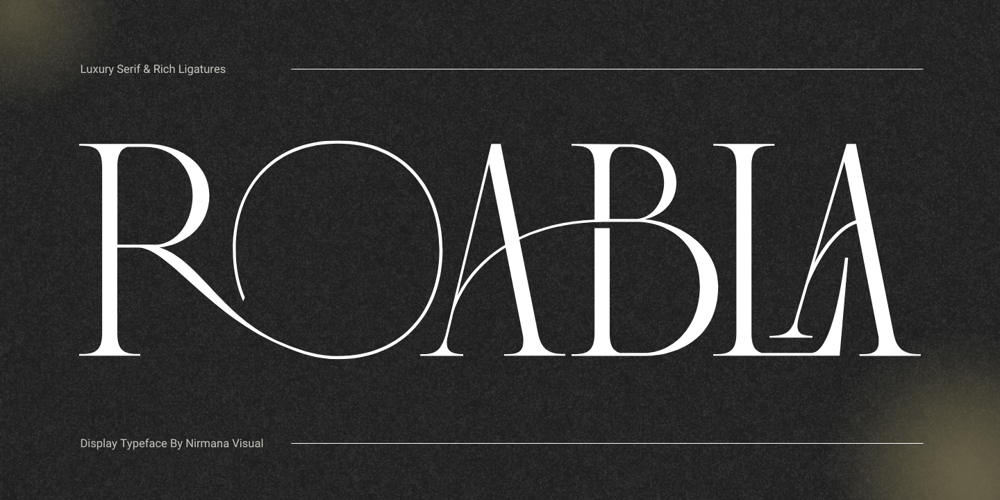
Roabla
Roabla font
Roabla Font Family was designed by Sigit Dwipa and published by Nirmana Visual. Roabla contains 1 styles and family package options. Imagine a font that effortlessly captures the essence of sophistication and timeless beauty. Every stroke of its serif delicately dances across the page, exuding an aura of refined elegance. The letterforms stand tall and regal, with graceful curves and precise angles that command attention and admiration.In the world of typography, this elegant serif font stands as a symbol of refined taste and classic style, elevating any design.